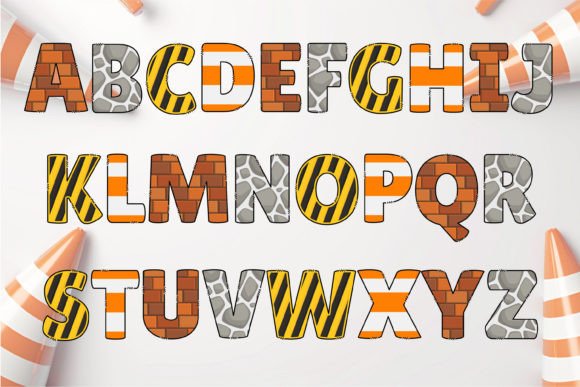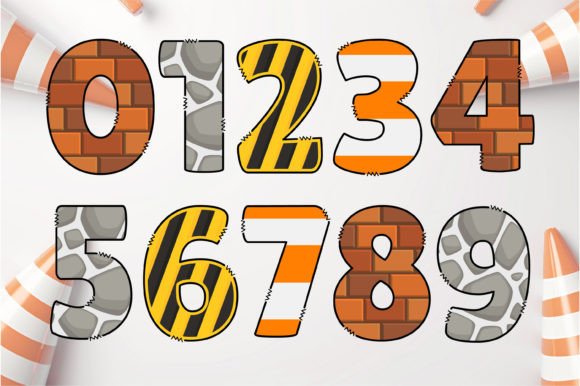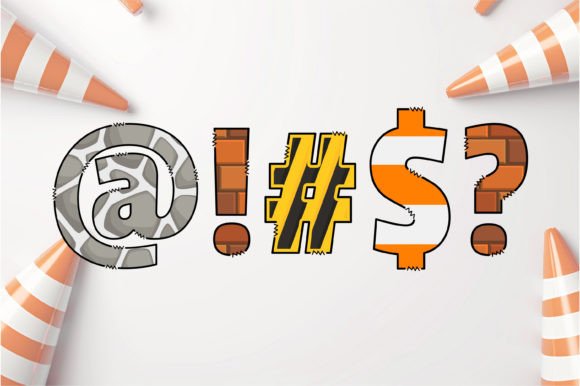
The Ultimate Guide to Construction Font: Unleashing Creativity in Design
When it comes to creating visually appealing designs, the right font can make all the difference. One font that has gained popularity among designers and crafters is the Construction Font. This font is known for its playful and artistic feel, making it perfect for a variety of design projects. In this article, we’ll explore the world of Construction Font, its features, and how to use it to unleash your creativity.
What is Construction Font?
Construction Font is a unique and versatile font that is often used in designs that aim to convey a playful or artistic feel. Its whimsical and colorful design makes it perfect for children’s books, posters, invitations, greeting cards, and more. The font is available in both black and color versions, each with its own set of compatible design programs.
Features of Construction Font
- Playful and Artistic Feel: Construction Font is designed to add a touch of playfulness and creativity to your designs.
- Whimsical Design: The font features a unique and whimsical design, making it perfect for children’s books and other artistic projects.
- Color and Black Versions: The font is available in both color and black versions, giving you flexibility in your design choices.
Using Construction Font in Design Projects
Construction Font is a versatile font that can be used in a variety of design projects. Here are some ideas to get you started:
- Children’s Books: The font’s whimsical design makes it perfect for children’s books, creating an engaging reading experience for young audiences.
- Posters and Invitations: Use Construction Font to add a playful touch to your posters and invitations.
- Greeting Cards: The font’s artistic feel makes it perfect for creating unique and personalized greeting cards.
Tips for Using Construction Font
Here are some tips to keep in mind when using Construction Font:
- Choose the Right Version: Make sure to choose the right version of the font for your design project. The black version is perfect for cutting machines, while the color version is best for design programs.
- Experiment with Colors: Don’t be afraid to experiment with different colors and design combinations to make your project stand out.
- Readability is Key: While Construction Font is playful and artistic, make sure it’s still easy to read, especially for children’s books and other projects where readability is crucial.
Construction Font is a versatile and playful font that can add a touch of creativity to your design projects. With its whimsical design and compatibility with various design programs, it’s perfect for children’s books, posters, invitations, greeting cards, and more. By following the tips outlined in this article, you can unleash your creativity and create unique and engaging designs with Construction Font.